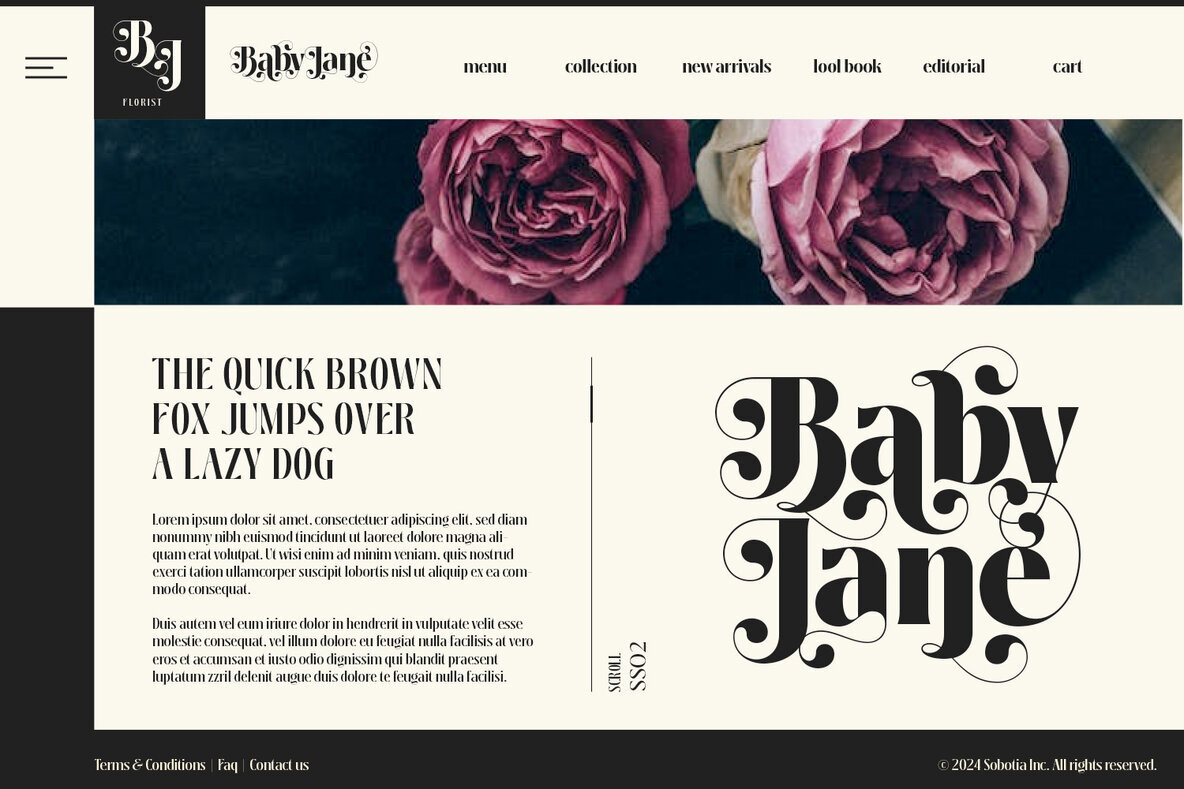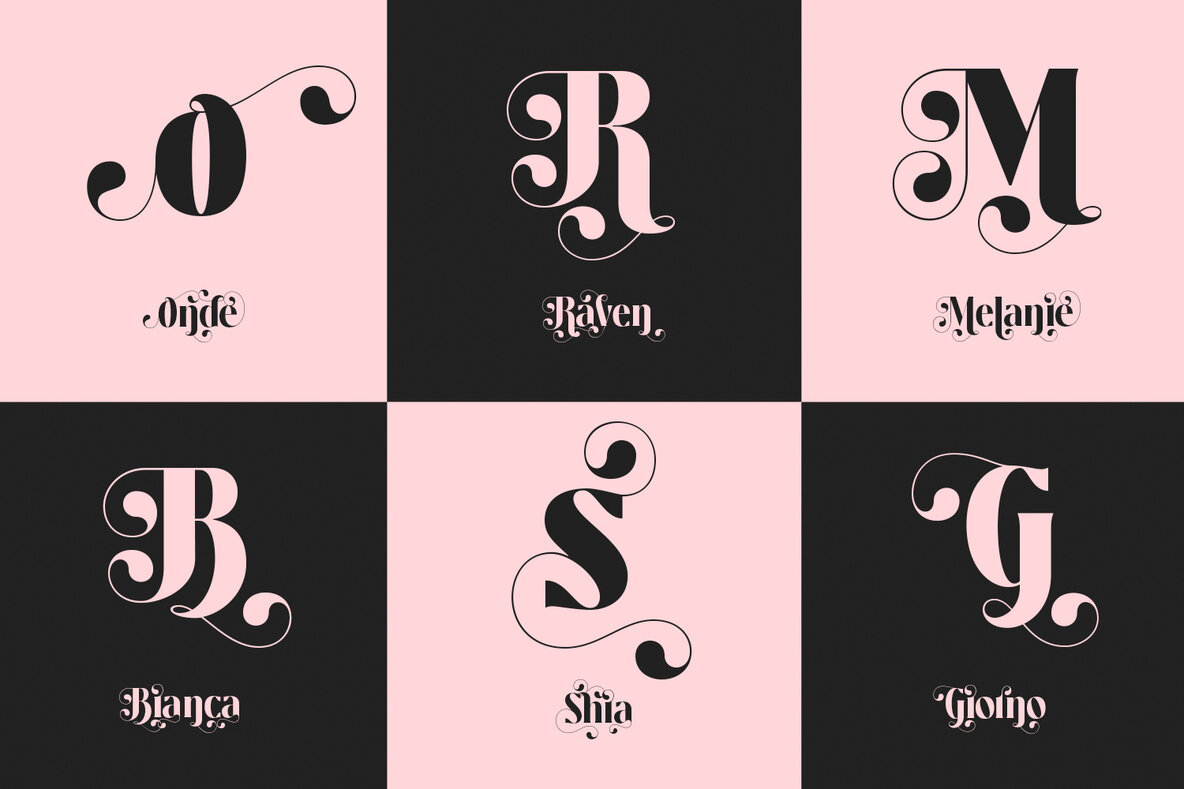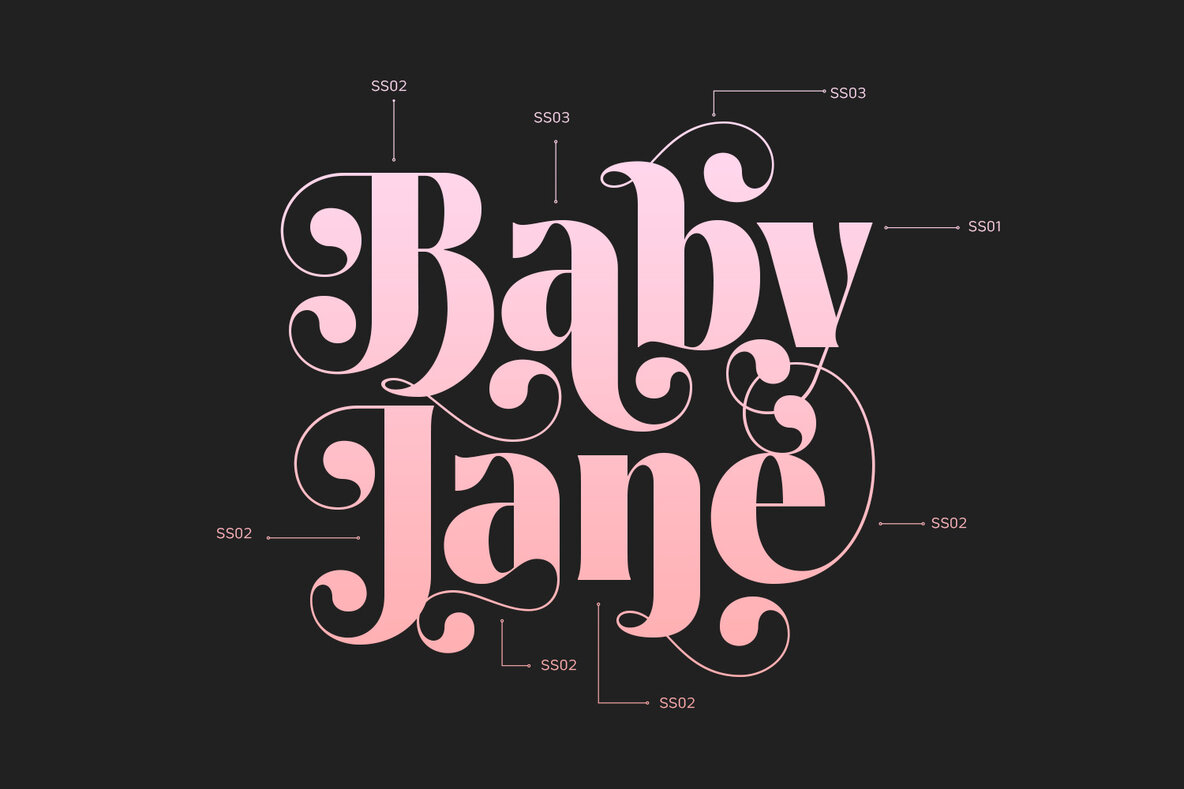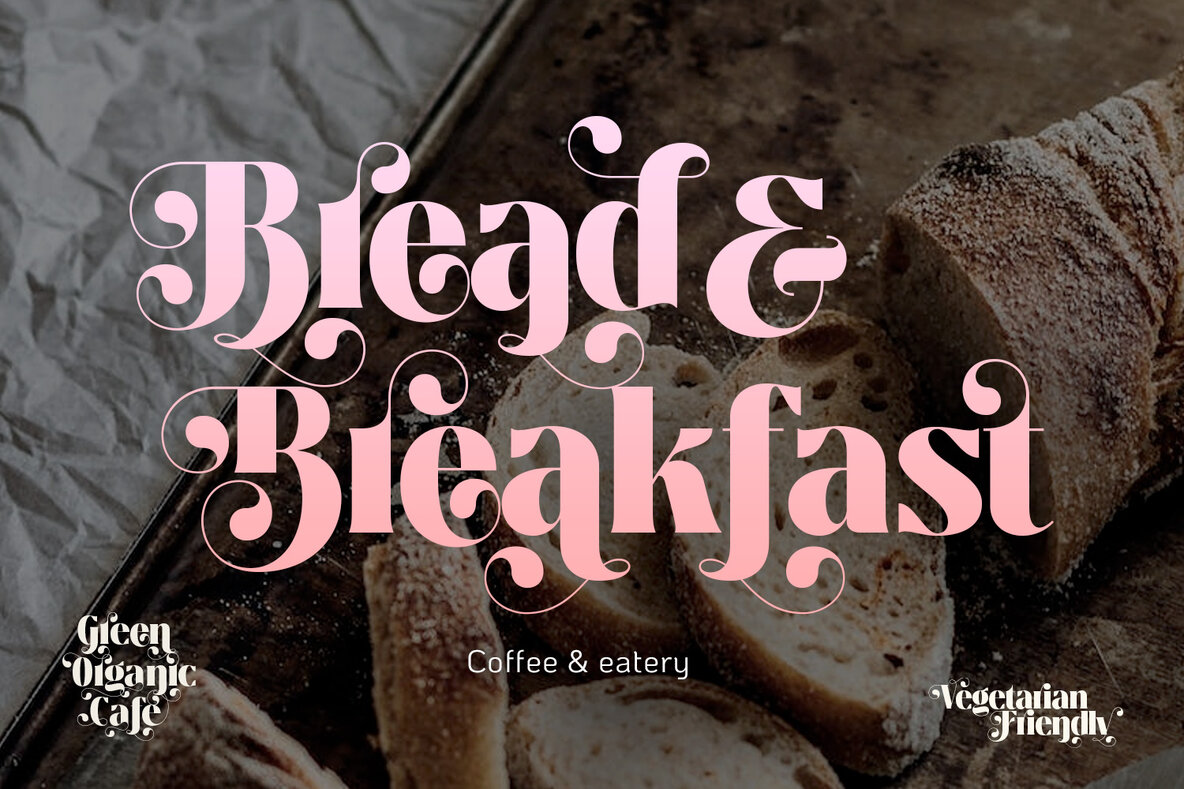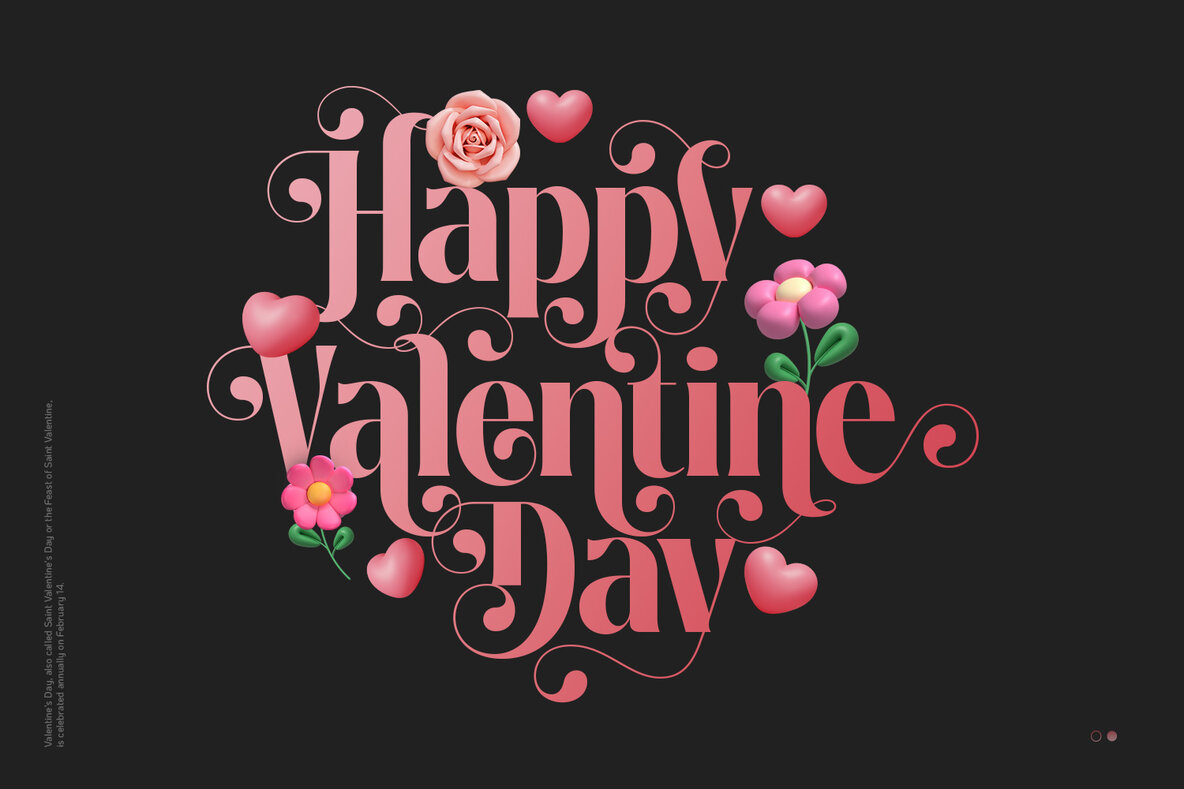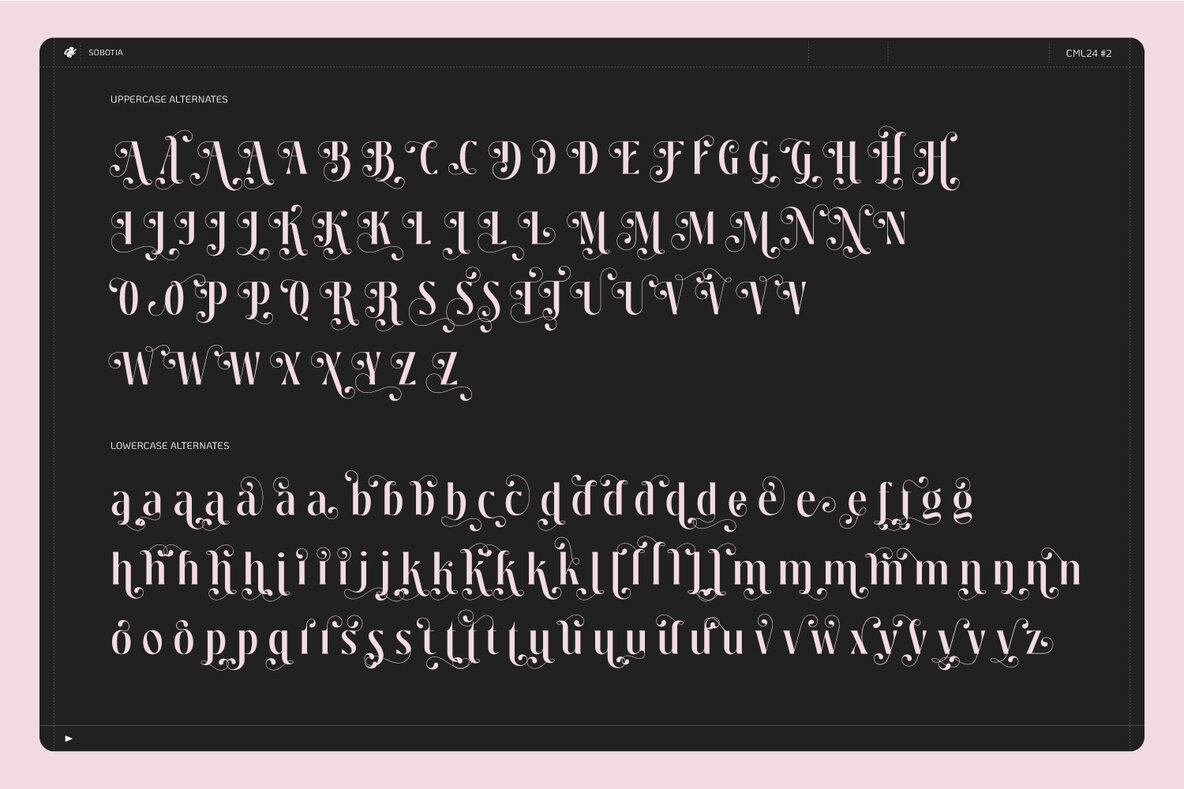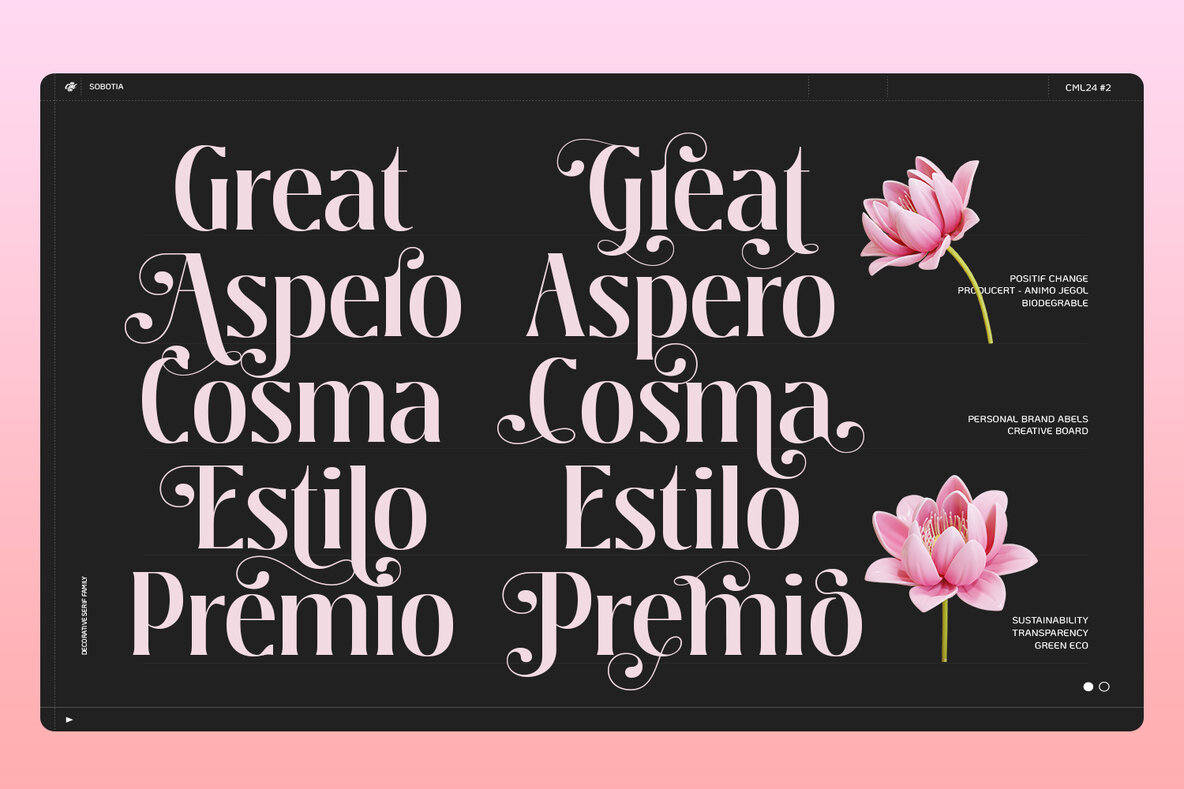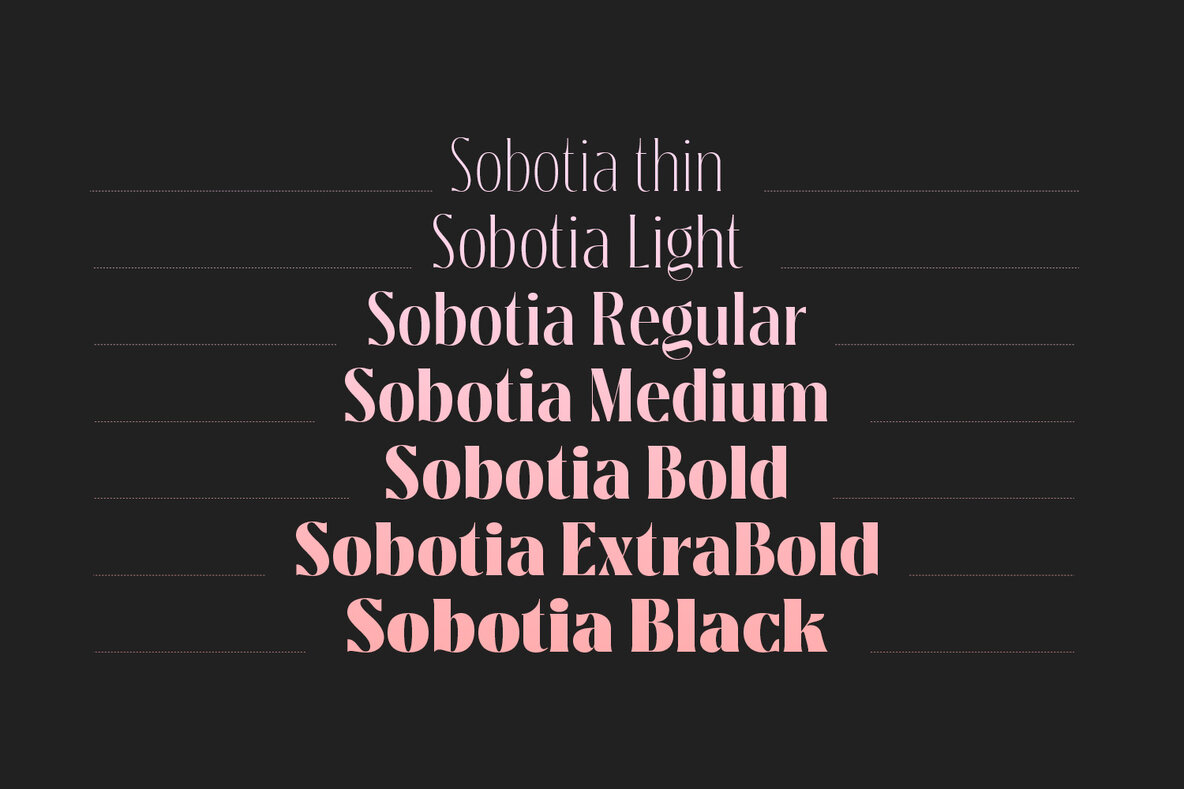
Sobotia Font
Sobotia draws inspiration from the enchanting beauty of flowers falling in autumn. The graceful curve of its terminal balls decorates the letters, creating a visually pleasing experience. As a romantic serif, it offers a wide selection of alternative letters and a variety of weights, providing ample flexibility to find the perfect typeface for any project.Sobotia: A Romantic Serif Inspired by Autumn